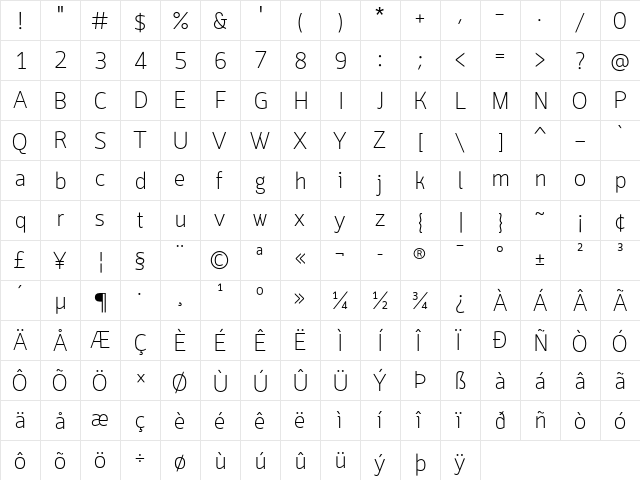
Quark Light
| Foundry | Typomancer |
| Designer | Typomancer |
Design Context for Quark Typeface
Quark takes a measured approach to typography — its balanced proportions and neutral character make it a reliable workhorse for both digital and print work. The delicate stroke weight brings airiness and refinement to layouts.